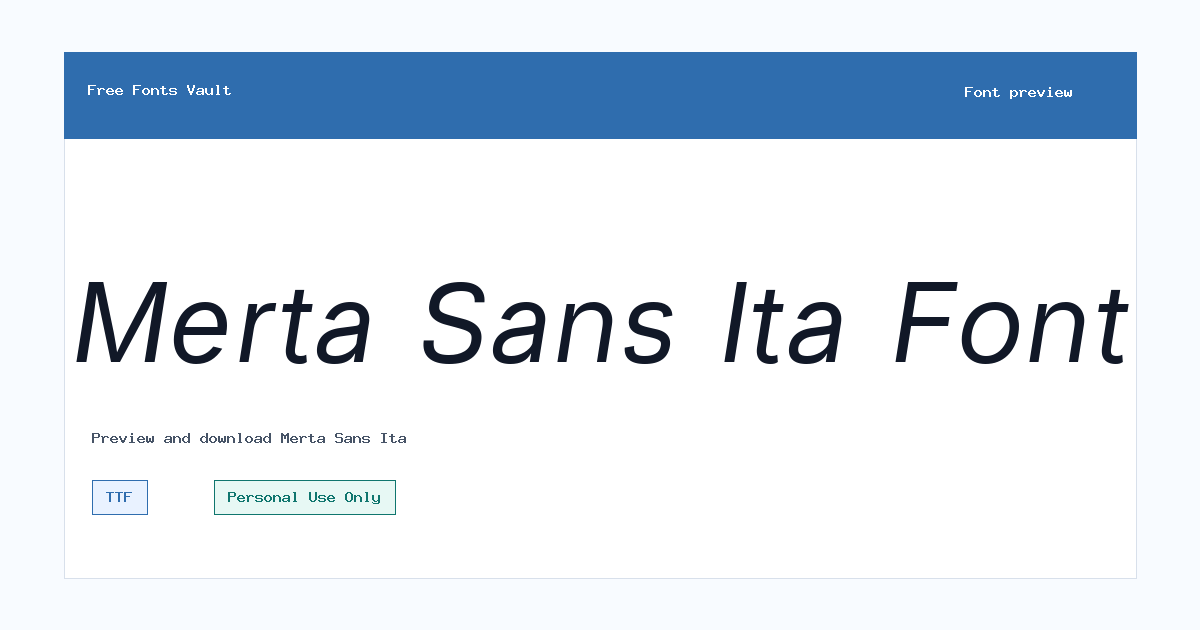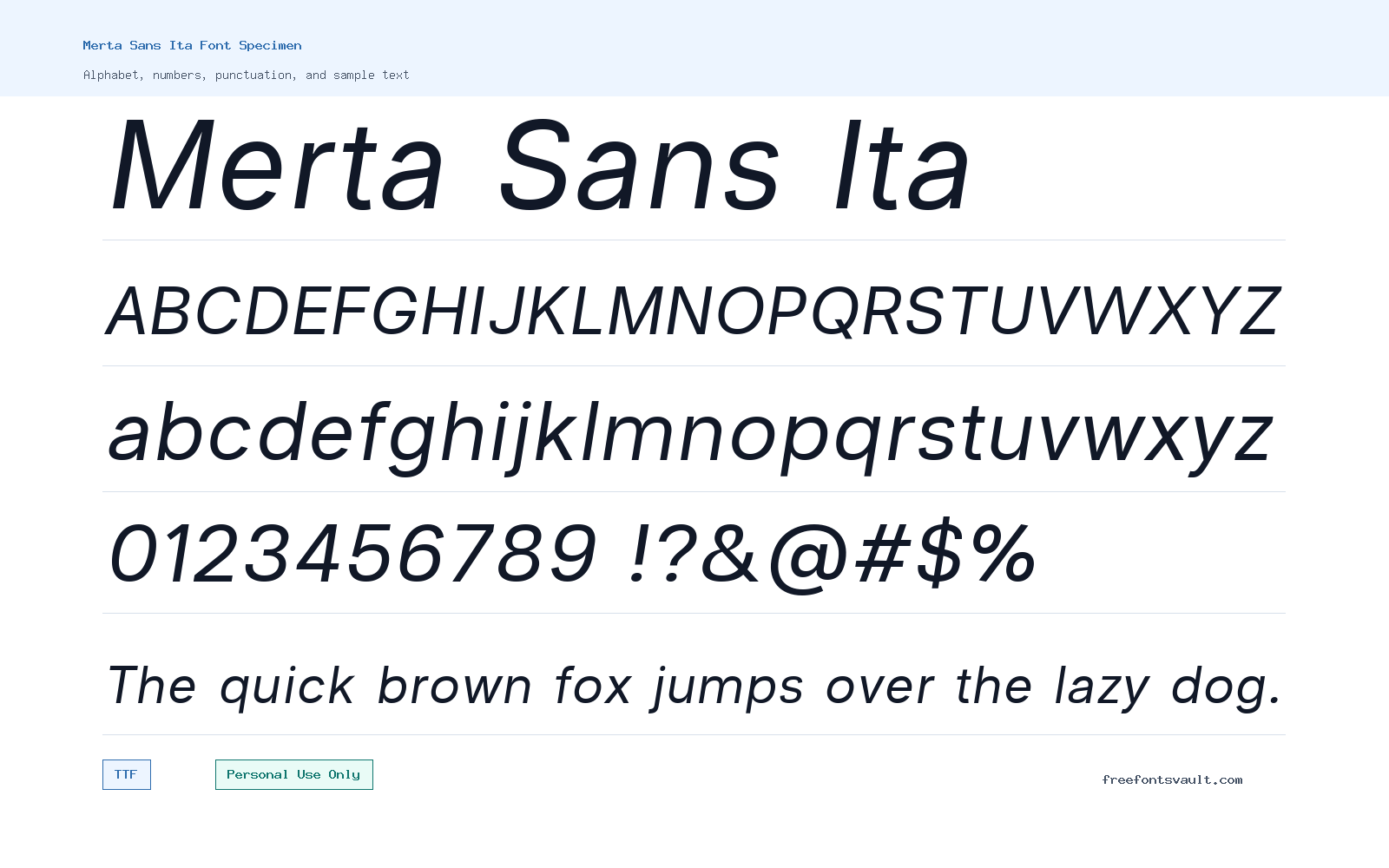
Merta Sans Ita
- Designer Diki Pradipta Tri Atmojo
- Foundry Lettertype Studio Co.
Merta Sans Ita is an italic sans-serif font family option for designers who want a slanted, clean-looking style for personal projects. The download contains TTF demo files in regular italic and bold italic weights, making it useful for testing emphasis, headings, and display text before deciding how it fits a design.
Merta Sans Ita works best when you need a sans-serif voice with movement rather than a completely upright text style. Its italic styling can help short words, names, captions, and display lines feel more active without moving into script or decorative territory. Because the available files are italic styles, it is better treated as an accent family than as a full body-text system. Try it in the preview with brand names, poster titles, quotes, social graphics, and short interface labels to see how the slant affects spacing and rhythm.
The family files include a regular italic style and a bold italic style in TTF format. That gives you two useful levels of emphasis: the lighter style can work for subheadings, captions, and supporting lines, while the bold italic style is more suitable for larger headings, logo roughs, poster text, packaging mockups, and hero images. For web mockups, test Merta Sans Ita at the exact sizes you plan to use, especially on mobile layouts, because italic sans-serif fonts can become harder to read in long paragraphs or small navigation text. Keep line lengths short, add enough letter spacing only if the preview needs it, and avoid using it for dense reading sections unless the result remains clear.
- Italic sans-serif styling suited to short display text, headings, captions, and concept mockups.
- Useful contrast between lighter italic text and heavier bold italic emphasis.
- Practical for previewing logo ideas, posters, web mockups, social graphics, and personal design experiments.
- Personal poster designs and title treatments
- Logo concept sketches for non-commercial testing
- Web and app mockups where italic display text is needed
- Social media graphics and quote layouts
- Presentation covers, moodboards, and visual studies
- Short headings paired with a neutral upright font
The designer is listed as Diki Pradipta Tri Atmojo, with Lettertype Studio Co. listed as the foundry. The designer website is Lettertype Studio.
Use Merta Sans Ita where a short line of text needs motion or emphasis. Pair it with a simple upright sans-serif for body copy so the page remains easy to read. In posters or logo mockups, compare the regular italic and bold italic styles at large sizes, then check spacing around narrow letters and punctuation. For web mockups, avoid long paragraphs in italic and test readability on smaller screens before committing to a layout.
Is Merta Sans Ita good for logos?
What should I pair with Merta Sans Ita?
Pair it with a plain upright sans-serif for body text. Let Merta Sans Ita handle titles, accents, or emphasis, while the companion font carries longer reading sections.